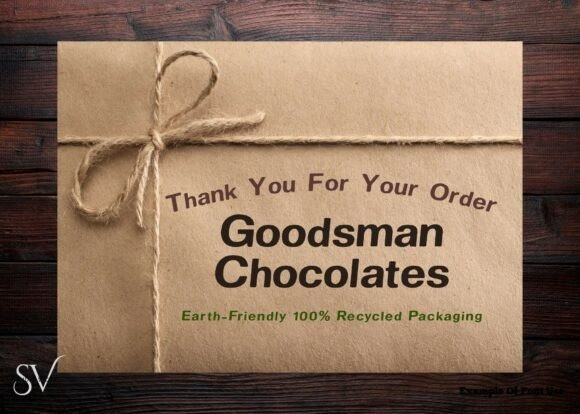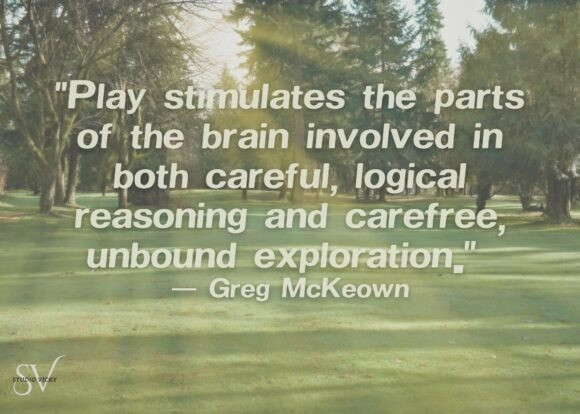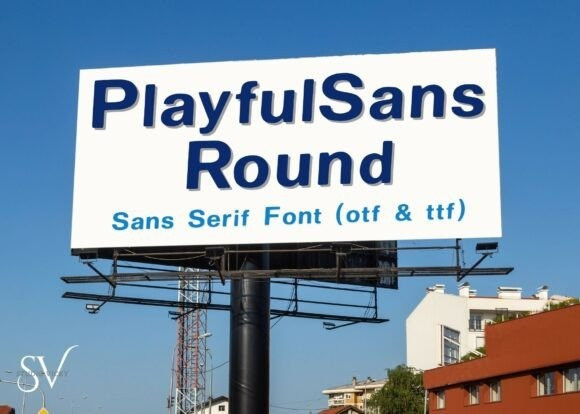
Playfulsans Round Font
PlayfulSans Round Font, a modern sans serif font with soft, rounded edges and a friendly, approachable style. Perfect for adding a clean yet inviting look to your designs, this versatile typeface works beautifully for everything from branding and product packaging to social media posts, digital stickers, and classroom resources.
With its smooth curves and balanced letterforms, PlayfulSans Round offers excellent readability while keeping a fun, casual vibe. Whether you’re creating playful headlines, minimalist logos, or printable projects, this font is a reliable go-to for both digital and print design.